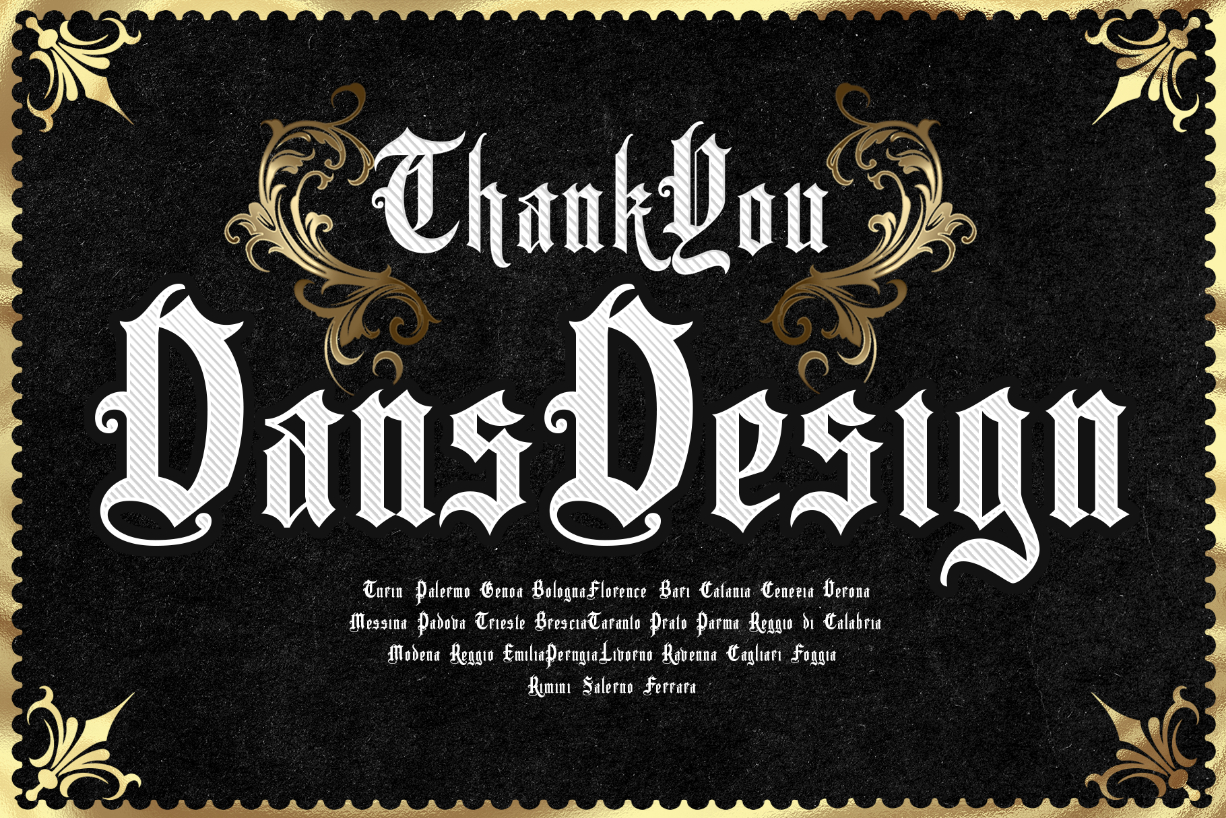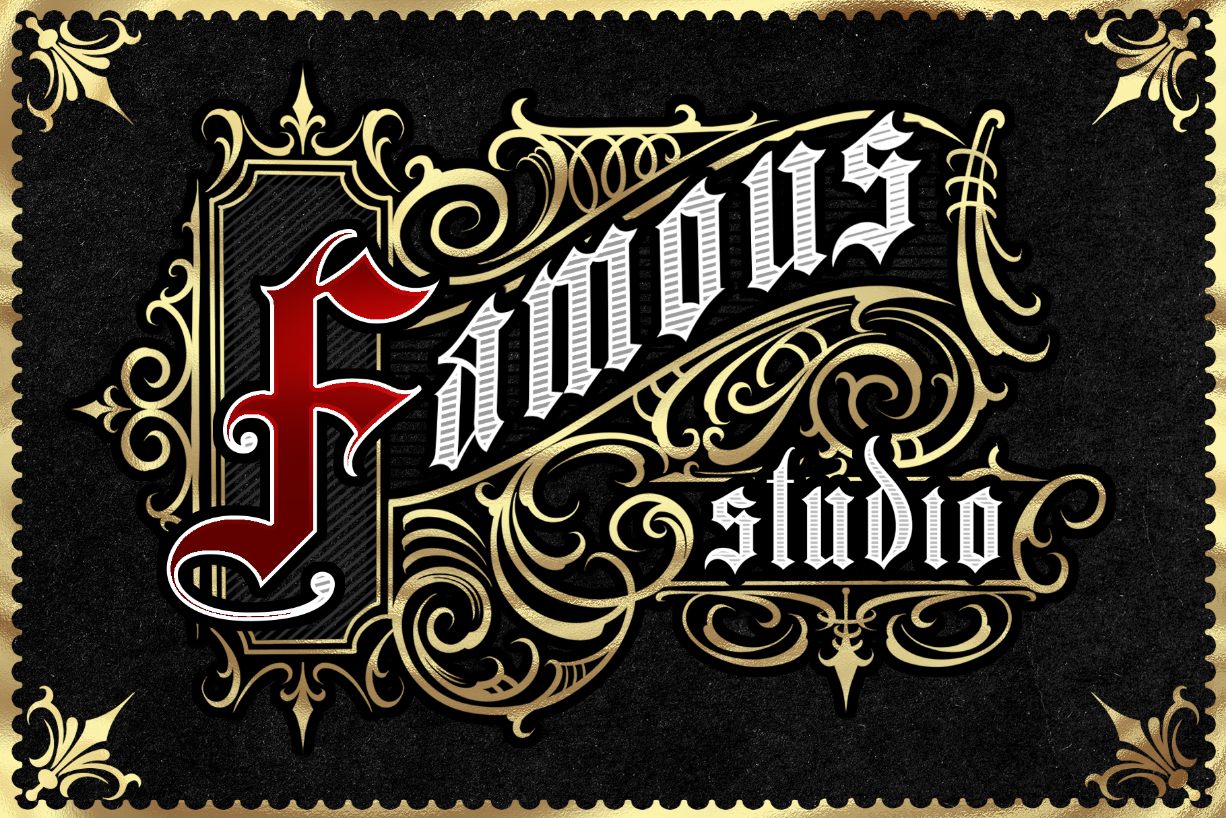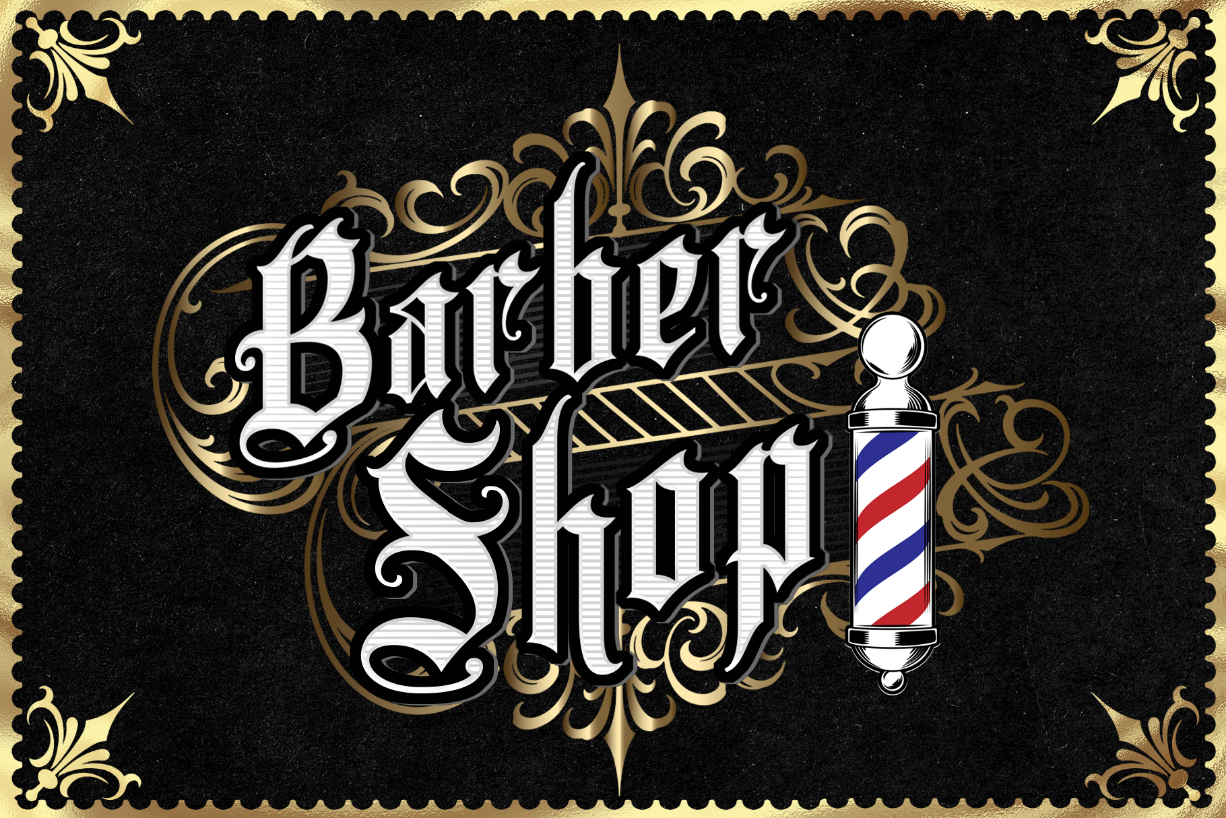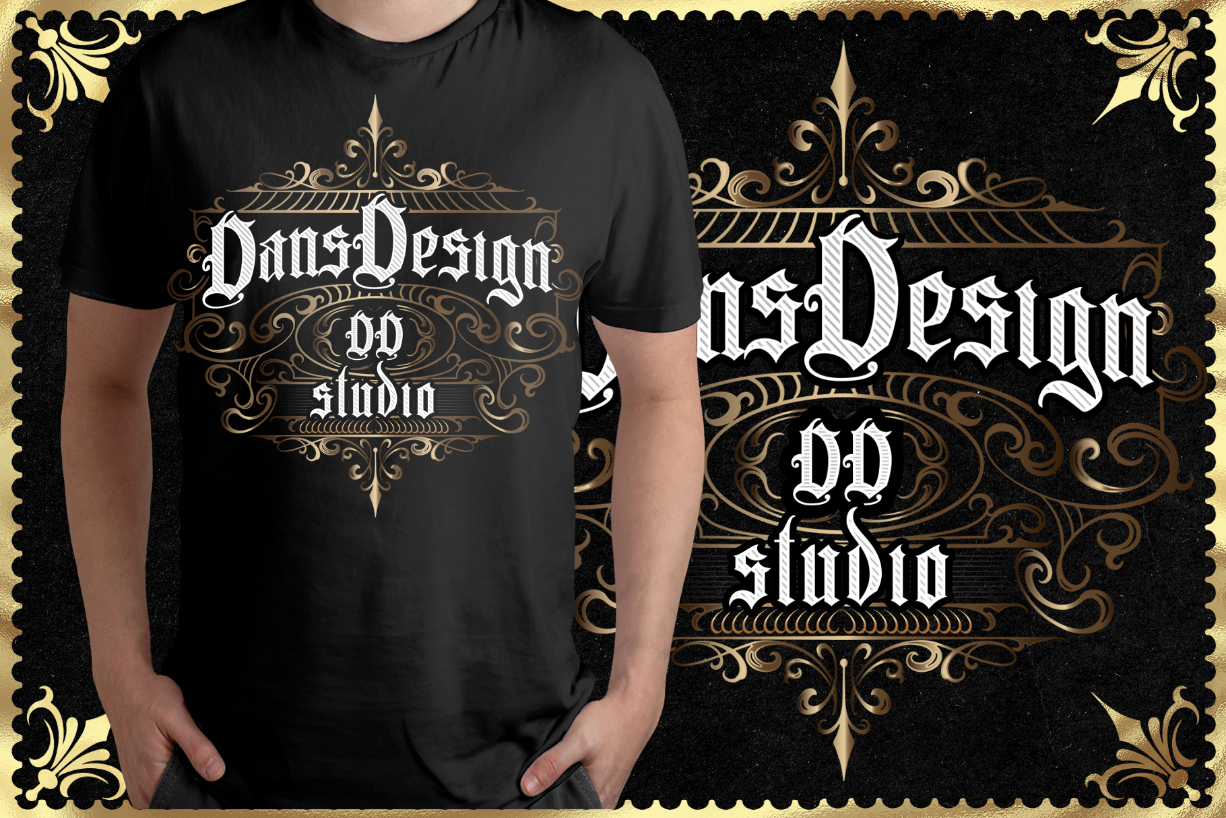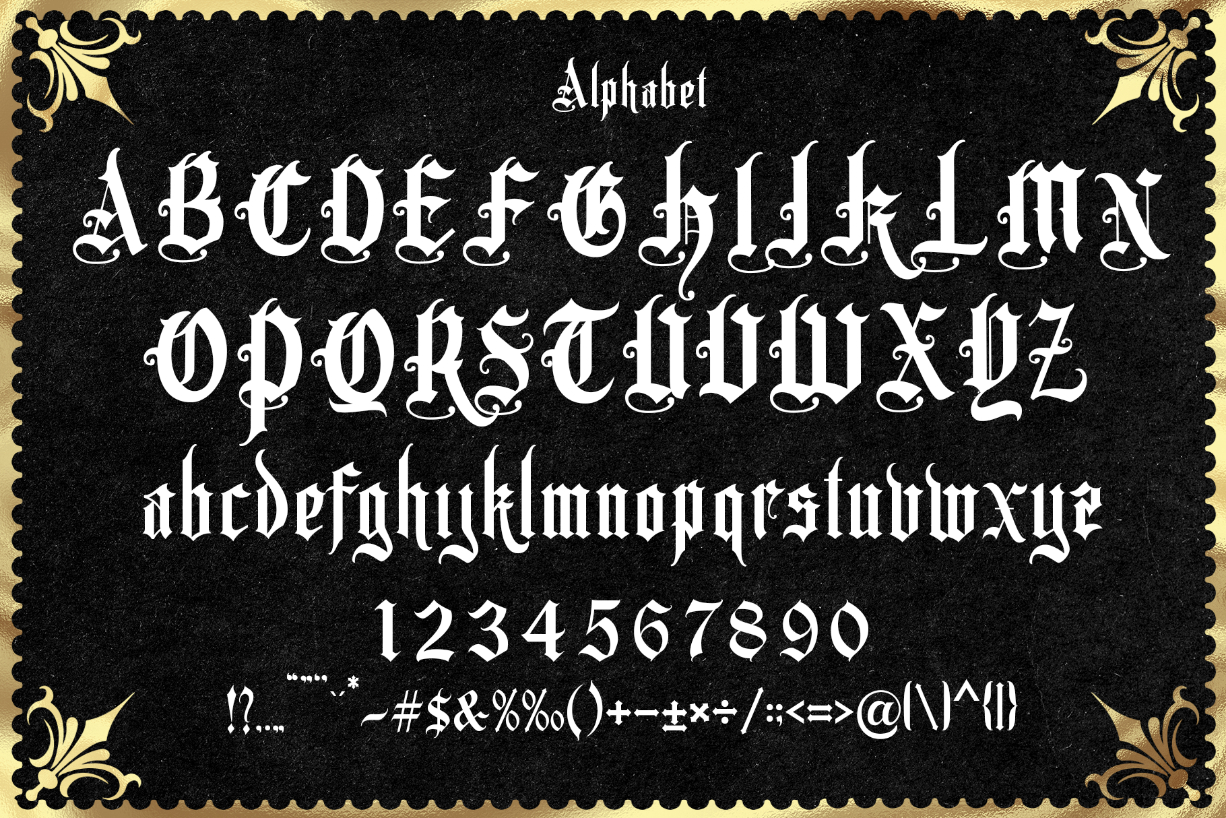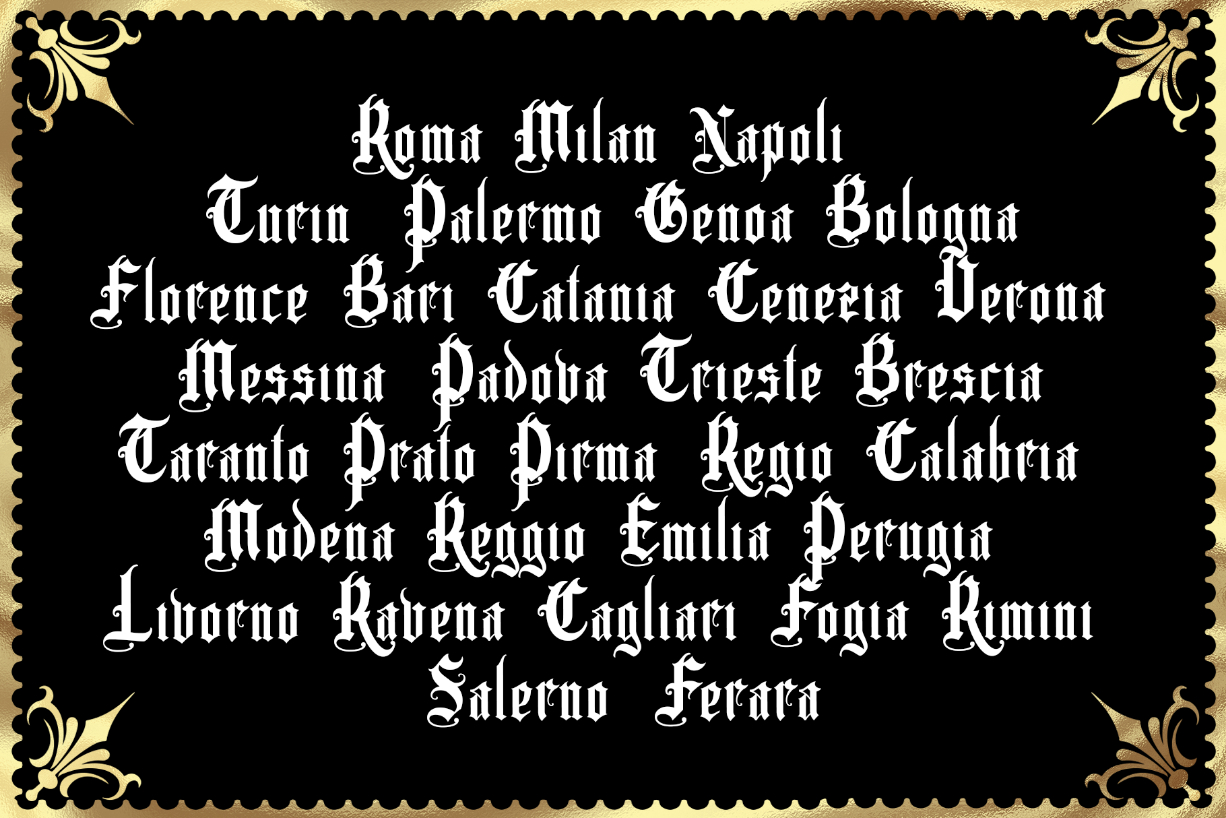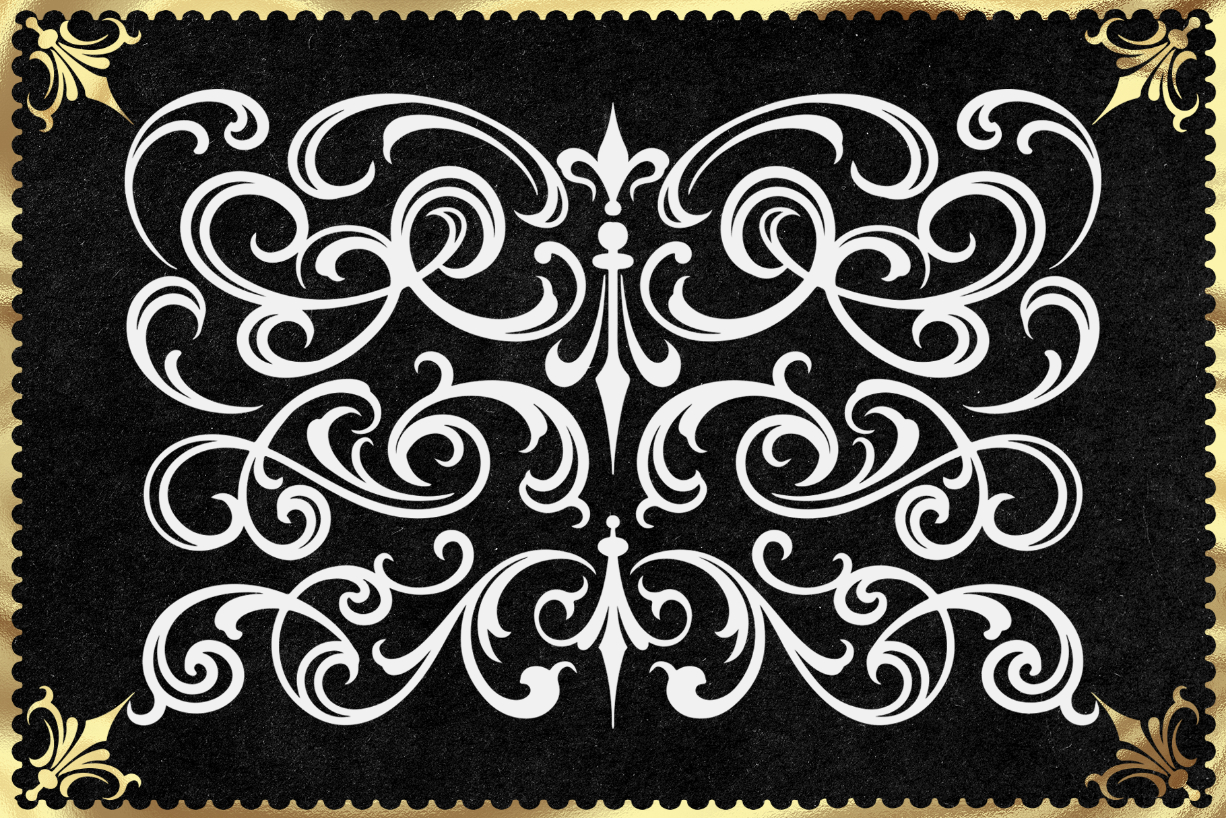
Crowers Font
About Crowers Font
Crowers is a modern blackletter font made with references to various letters combined and designed with style. Add it to your most creative projects and watch them come alive!